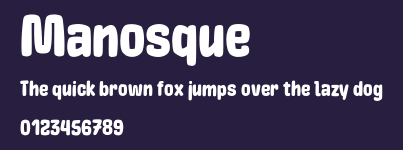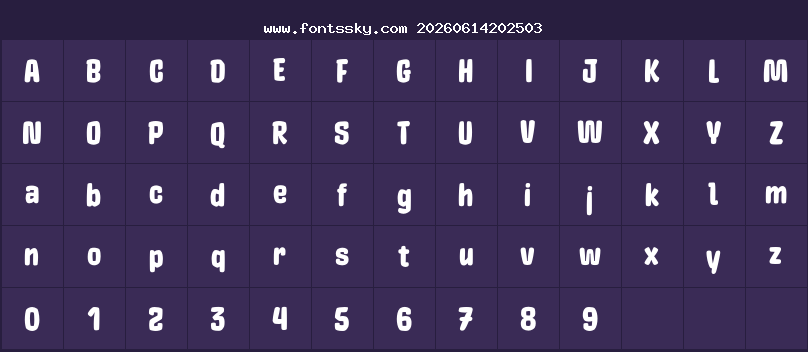
• Font Name: Manosque
• Full Font Name: Manosque Regular
• Designer: Ariel Martín Pérez
About Manosque.otf
Manosque.otf is a modern, elegant sans-serif font designed for ultimate readability and visual harmony. Perfect for branding, headlines, web design, and print materials.